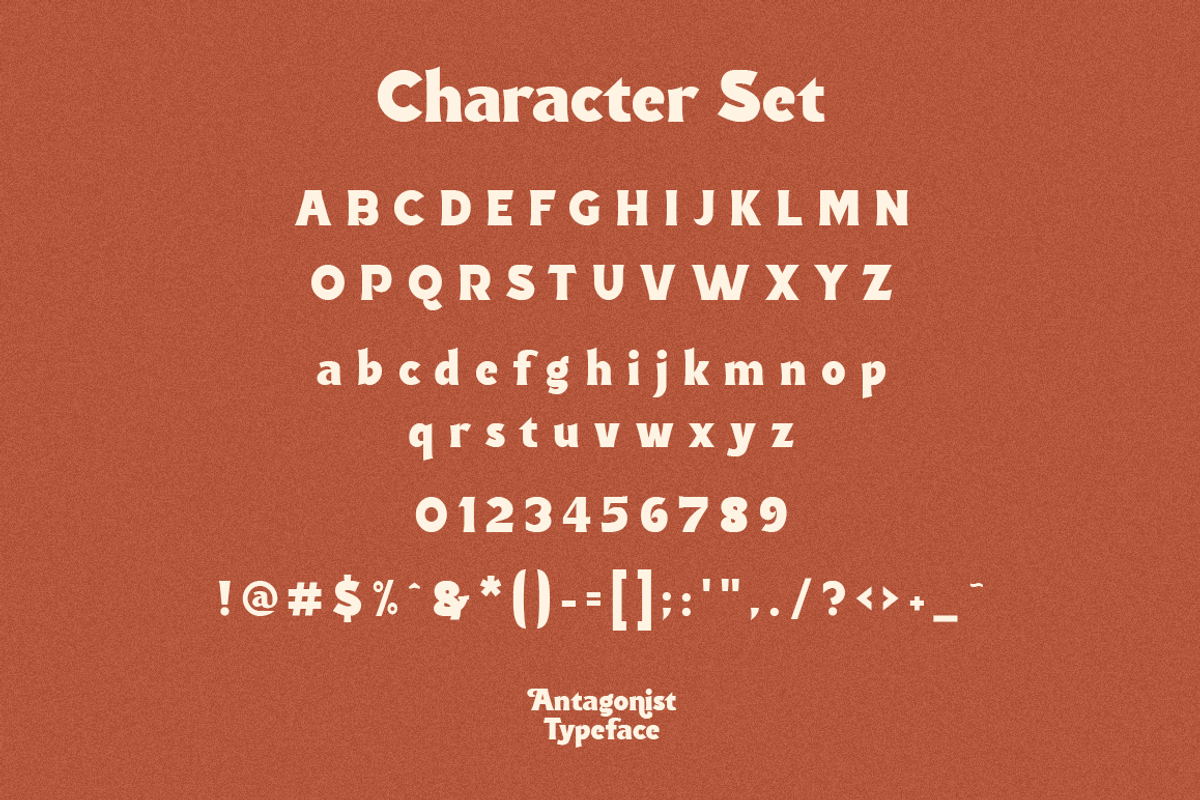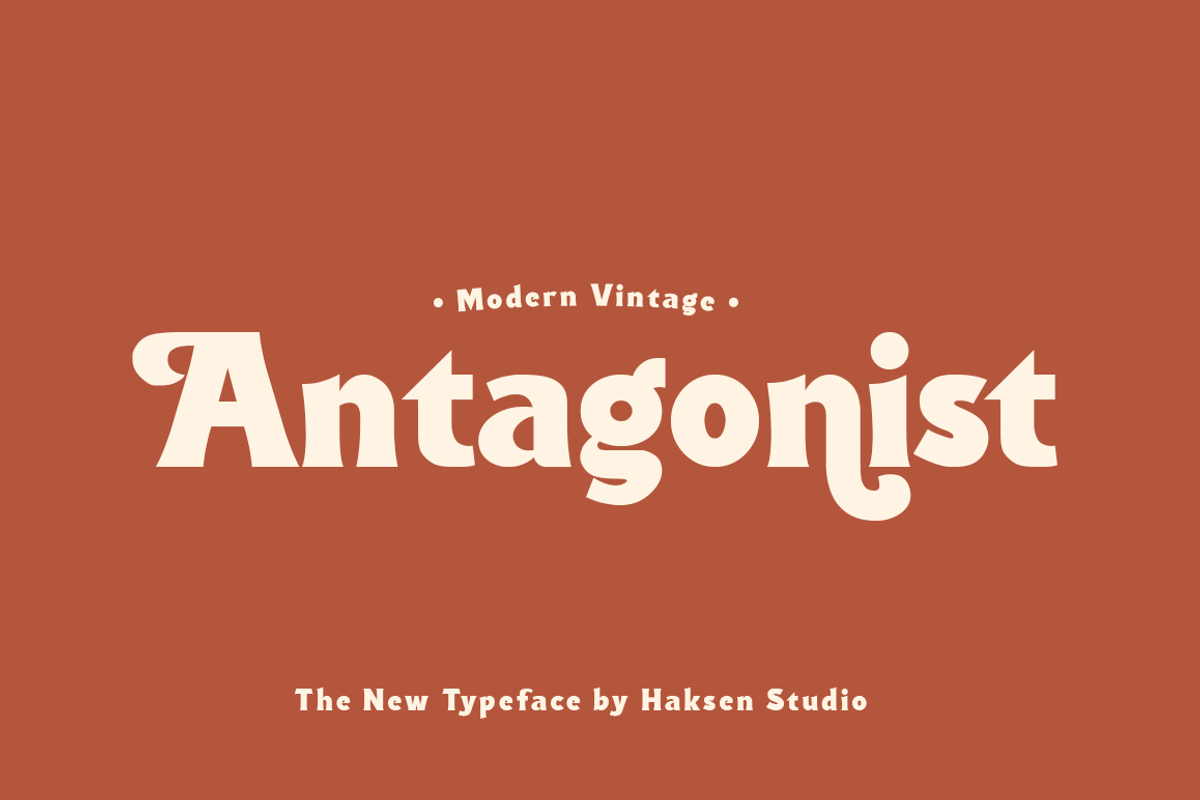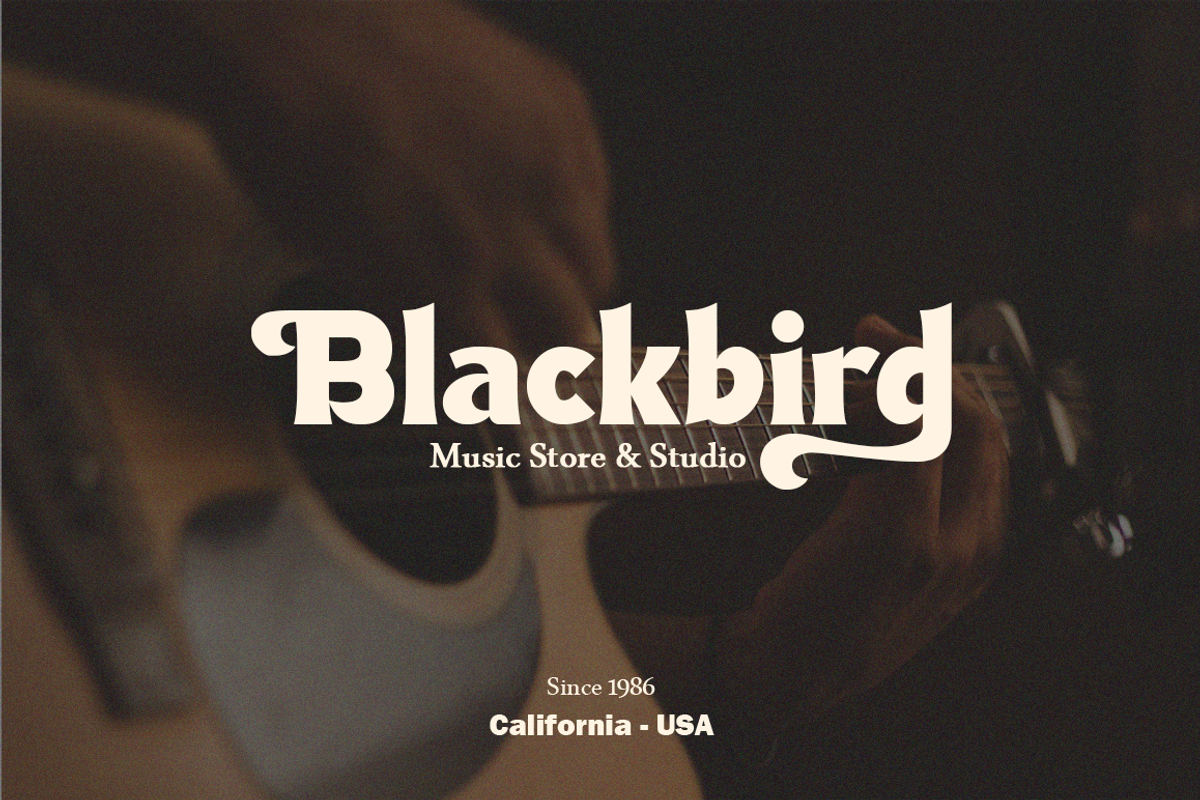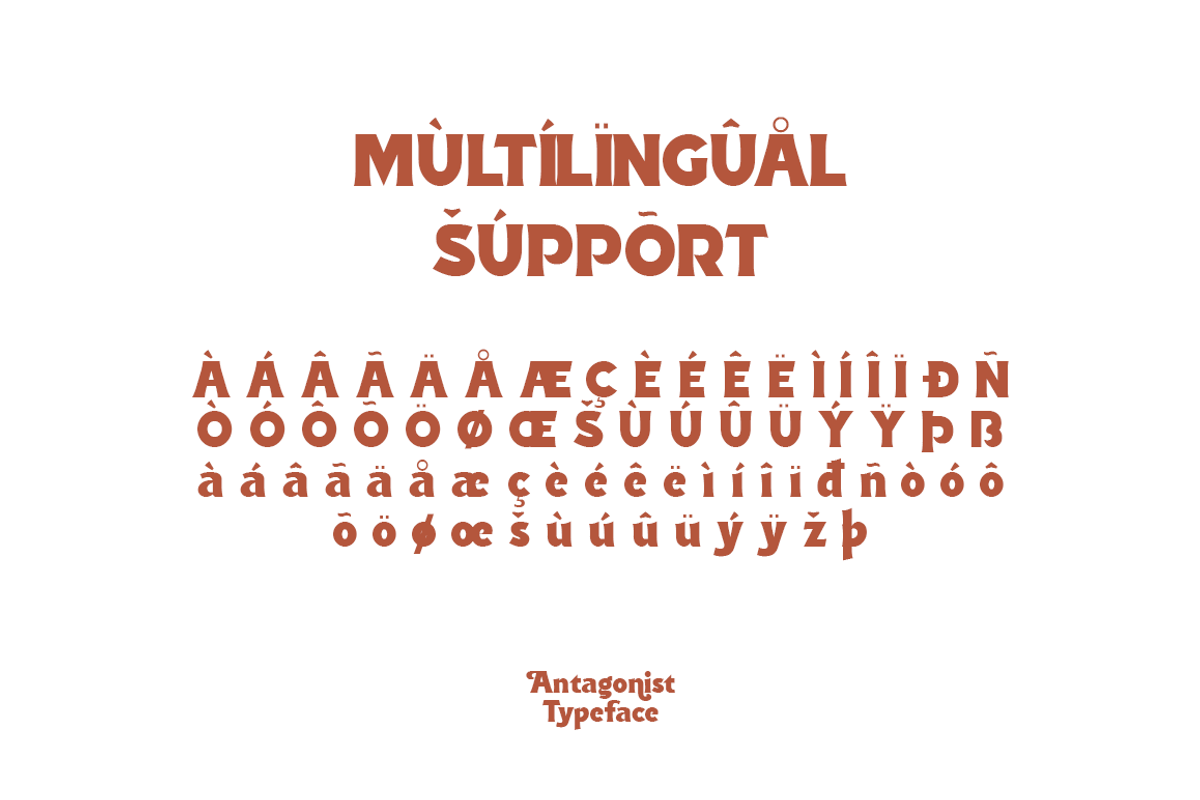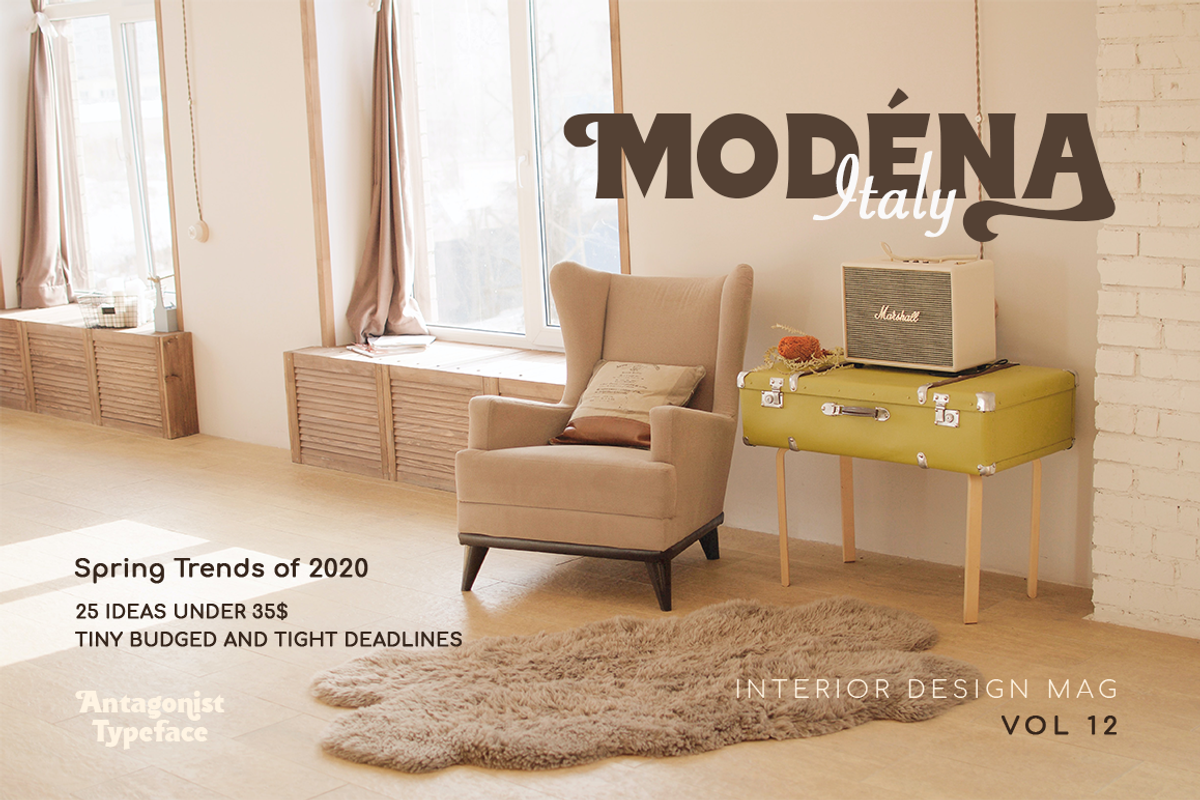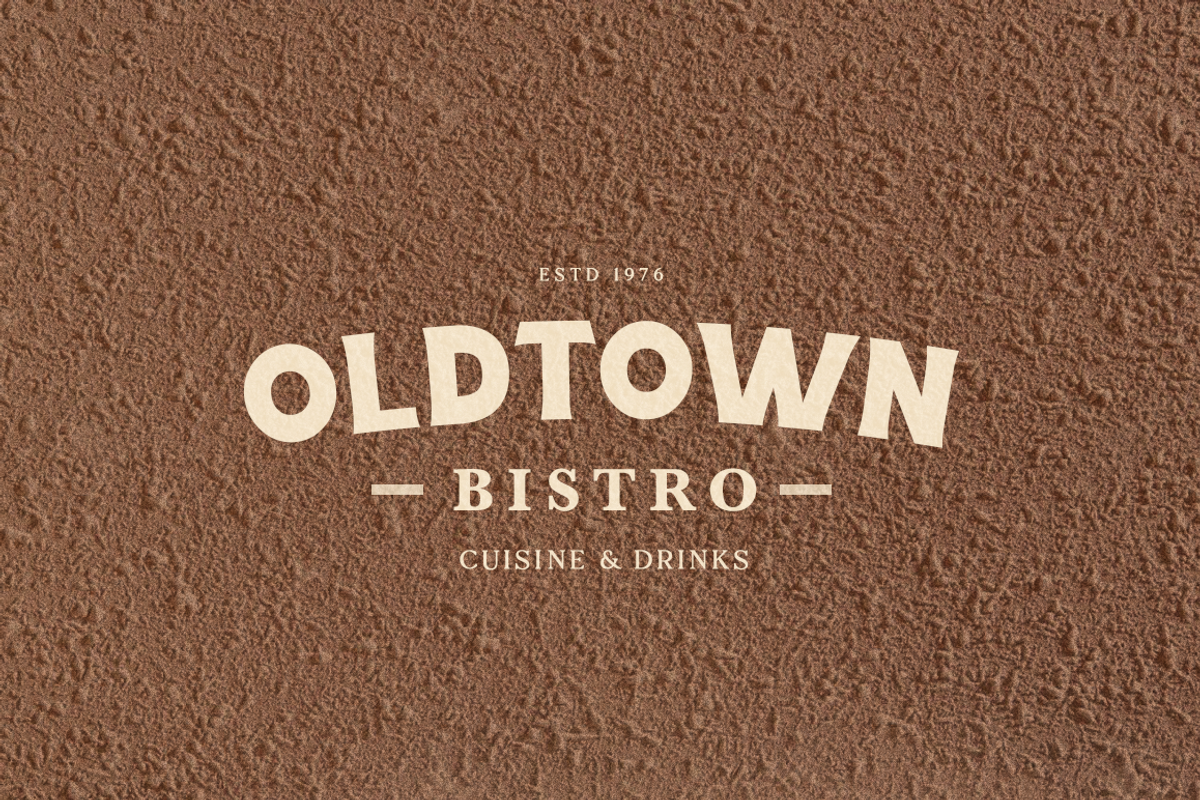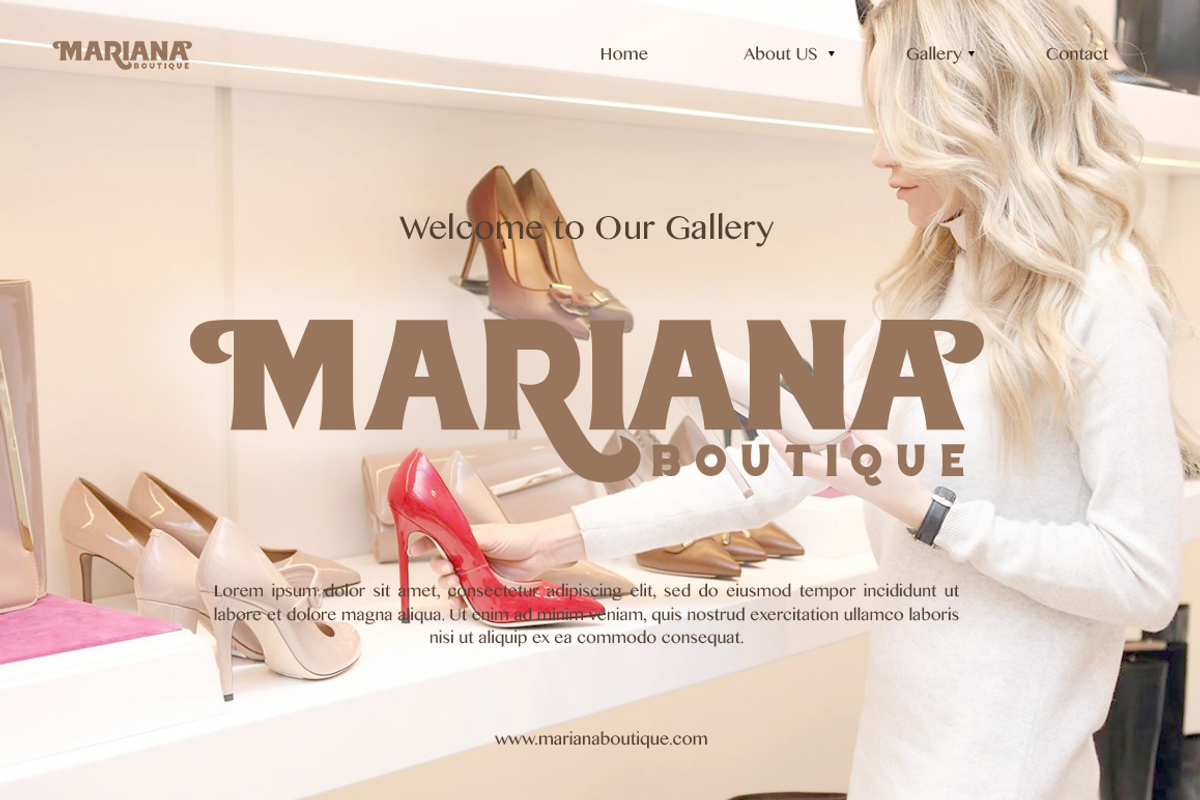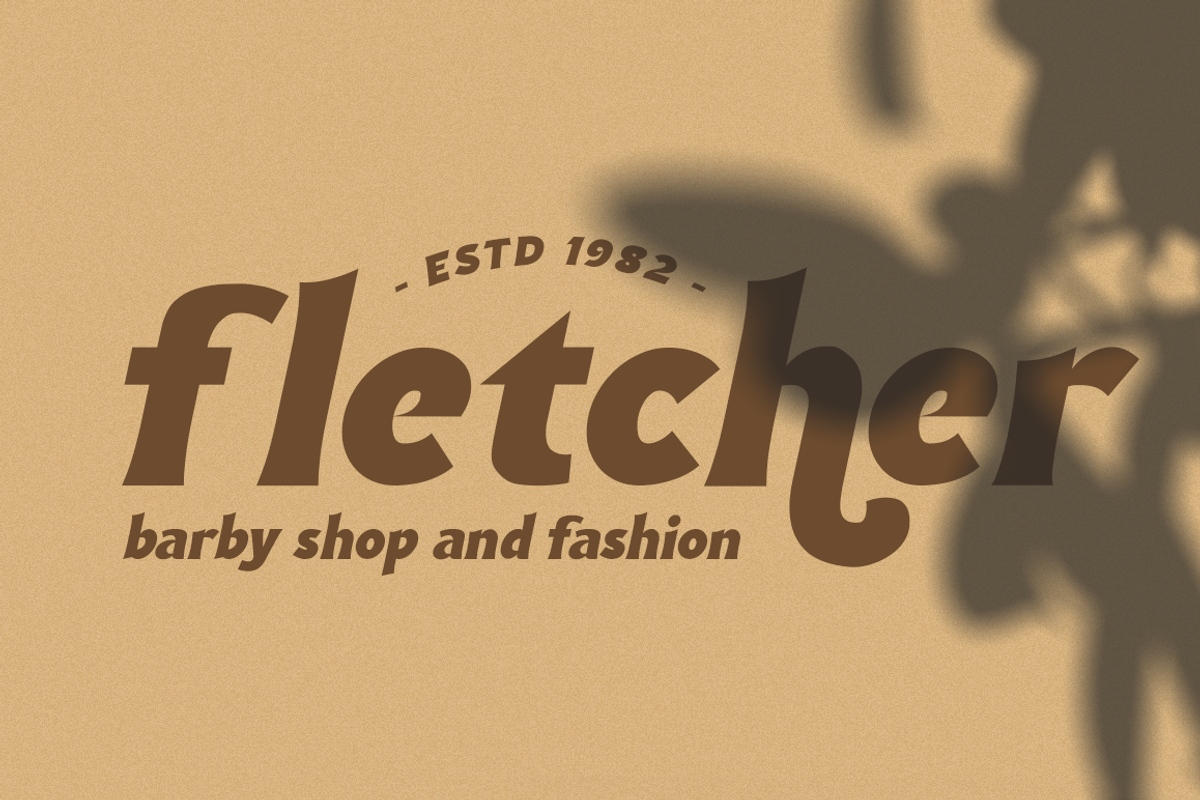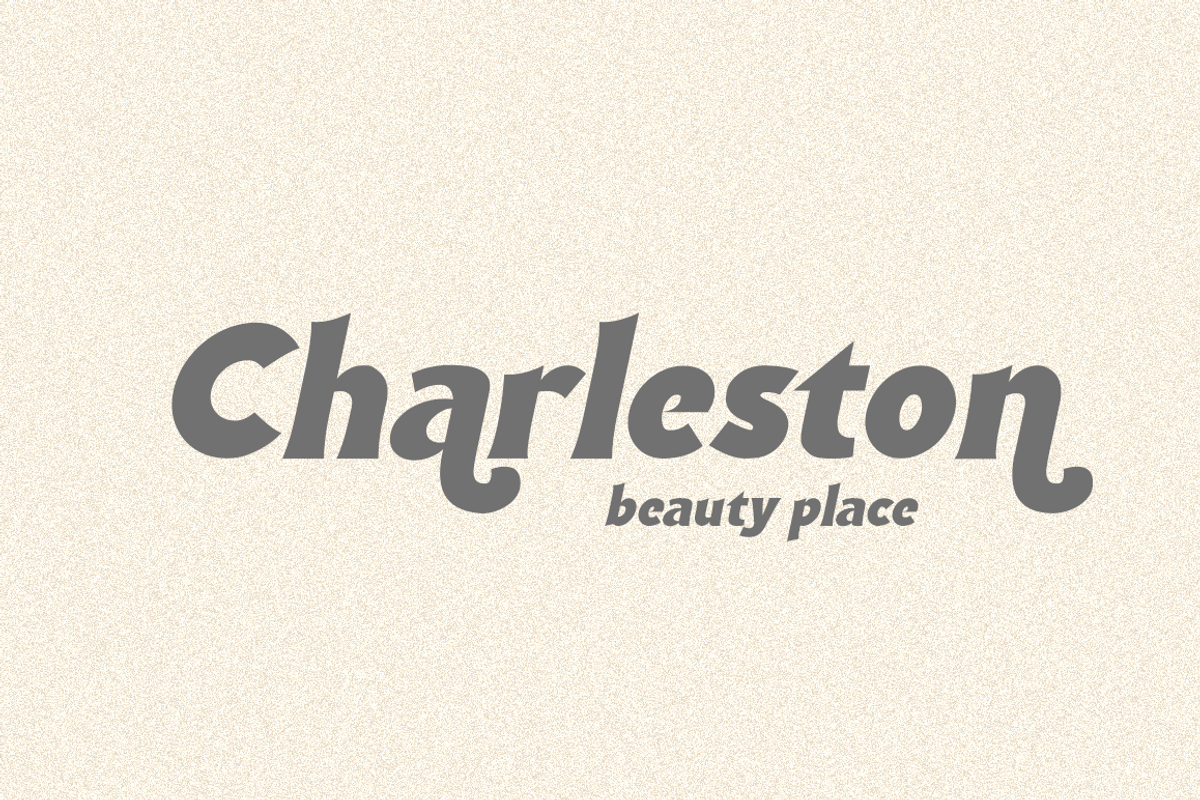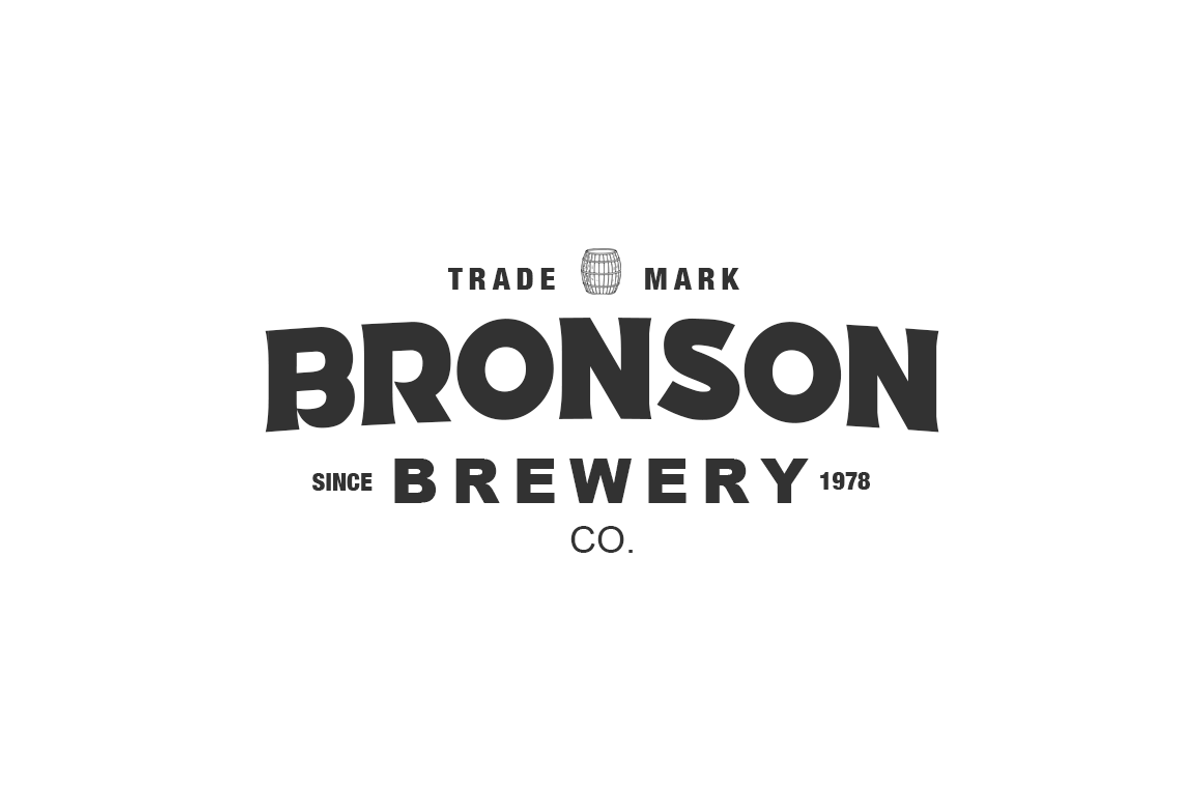
Antagonist Casual Bold Serif
Antagonist is a Bold elegant modern vintage serif style with upper and lowercase feel nice balanced. Its wide range of uppercase and lowercase alternates allow versatile design options and works perfectly for headlines, logos, posters, packaging, T-shirts, postcards and much more.
- Character set A-Z Uppercase and Lowercase (Regular & Italic)
- Alternates Characters
- Accented Characters
- Multiple Languages Supported